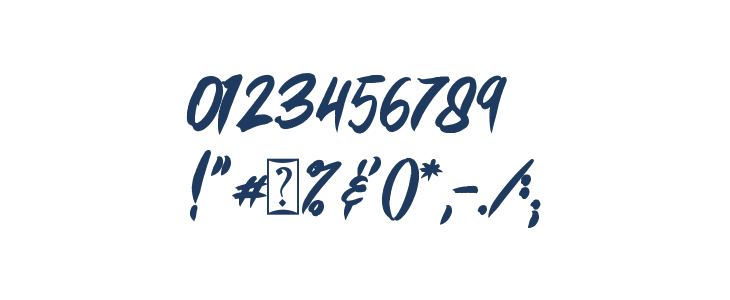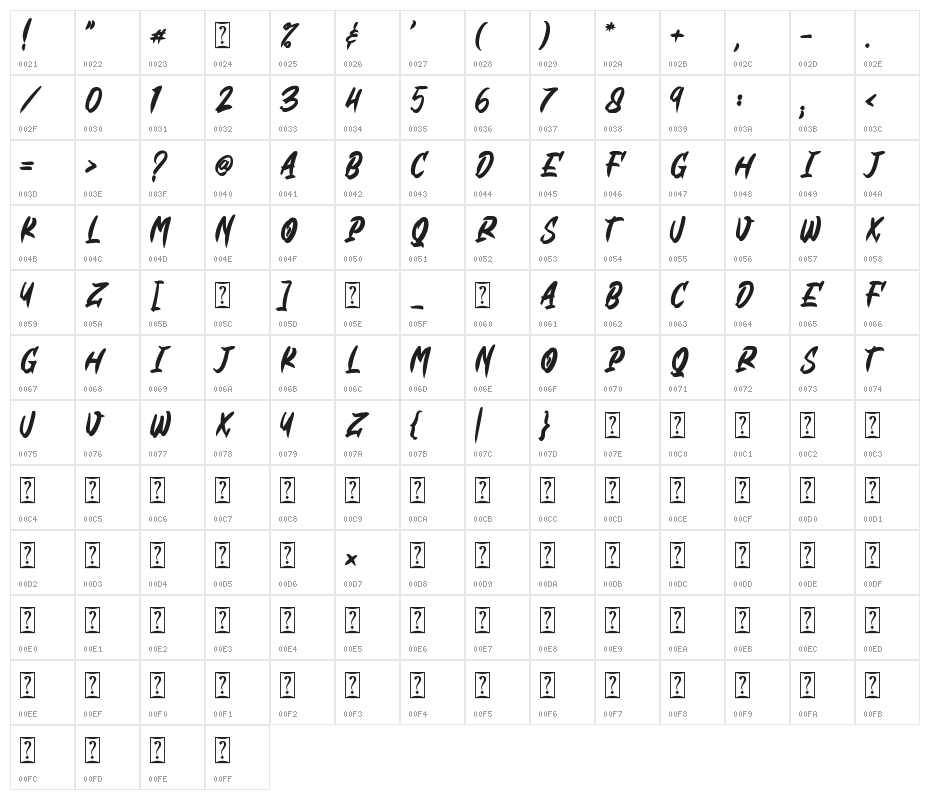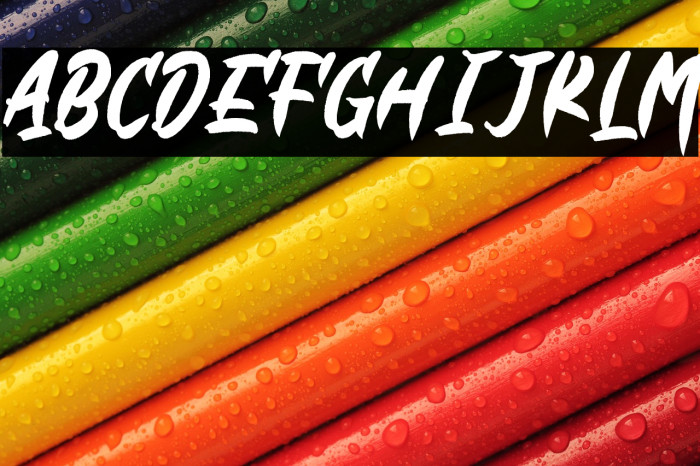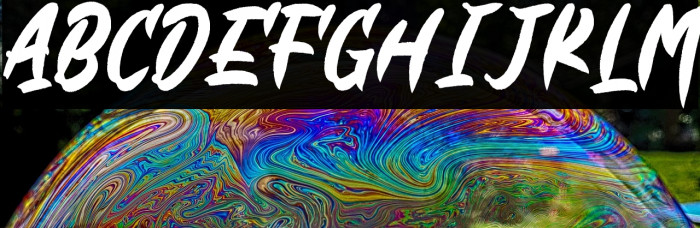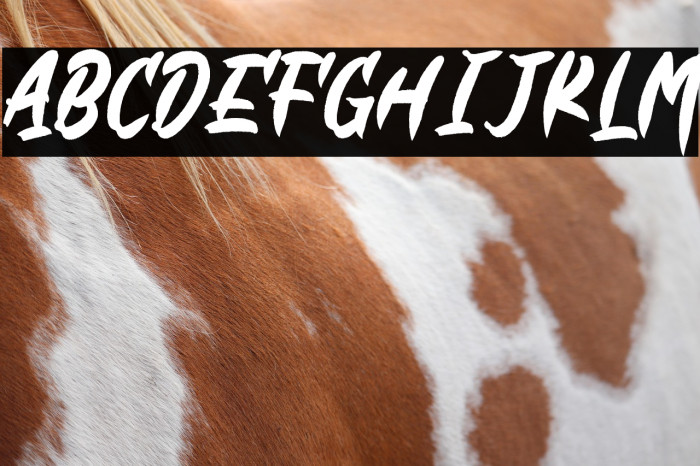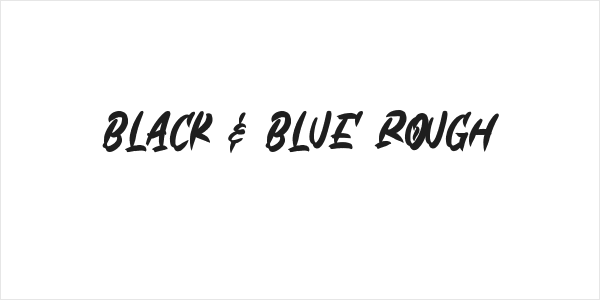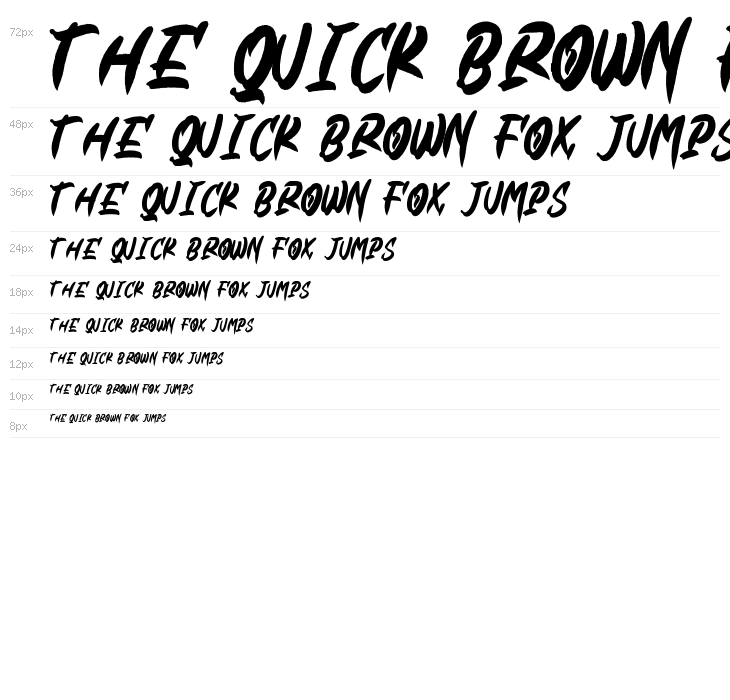
Black & Blue Rough Font
Black & Blue Rough Description
This font features a bold and dynamic script style with a rough, hand-drawn appearance. The letters are slightly slanted, giving a sense of motion and energy. The strokes are thick and uneven, adding a rugged and informal feel. The uppercase and lowercase letters maintain a consistent style, with exaggerated curves and sharp edges. Numbers and special characters follow the same aesthetic, ensuring a cohesive look across all glyphs. This font is ideal for projects that require a bold, expressive touch.
| Use Case | Logos, Headlines, Posters |
| Proposed Projects | Ideal for branding, posters, and any design needing a bold, expressive touch. |